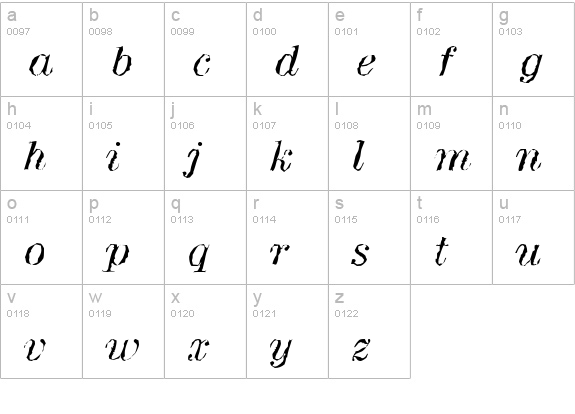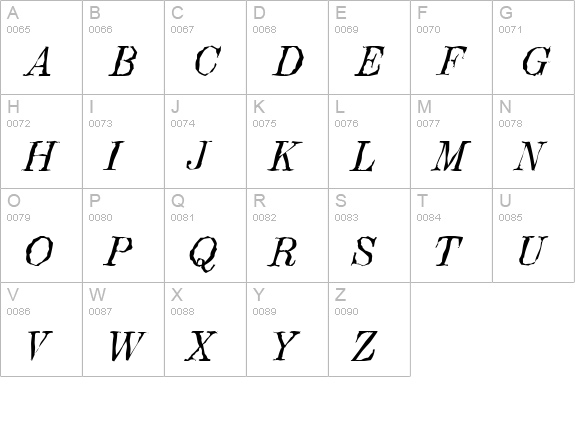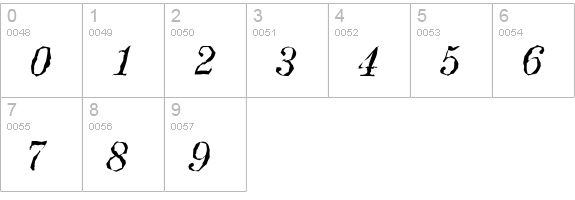
ValenciaRandom-Italic Font Details
ValenciaRandom-Italic is a distinctive, italic variant in the ValenciaRandom typeface family \xE2\x80\x94 well suited to design and typography projects.
ValenciaRandom-Italic is a beautifully crafted font that exudes elegance and sophistication. Its unique italic style adds a touch of flair to any design project, making it stand out from the crowd. This versatile font is perfect for various purposes, from branding to editorial design to social media graphics. The flowing curves and graceful lines of ValenciaRandom-Italic make it a popular choice among designers looking to add a touch of creativity to their work. Whether you're creating a logo, a poster, or a website, this font will elevate your design to the next level. Best of all, ValenciaRandom-Italic is available for free download at FontsMarket.com. So you can enjoy using this stunning font in your projects without any cost. Don't miss out on the opportunity to enhance your designs with ValenciaRandom-Italic today!